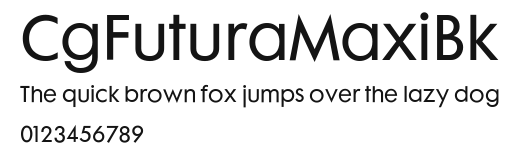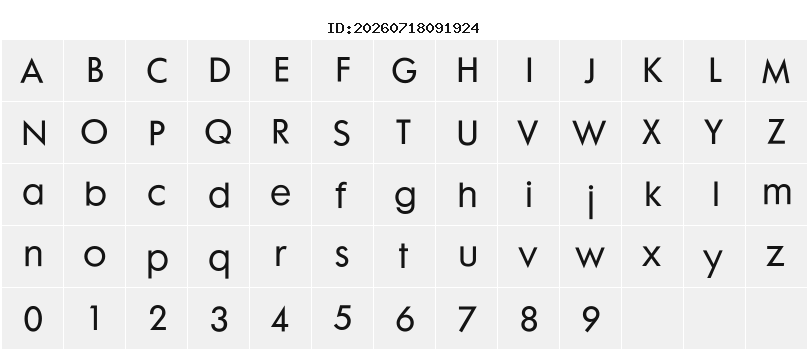
CgFuturaMaxiBk Preview
About CgFuturaMaxiBk.ttf
CgFuturaMaxiBk.ttf is a modern, elegant sans-serif font designed for ultimate readability and visual harmony. Perfect for branding, headlines, web design, and print materials.